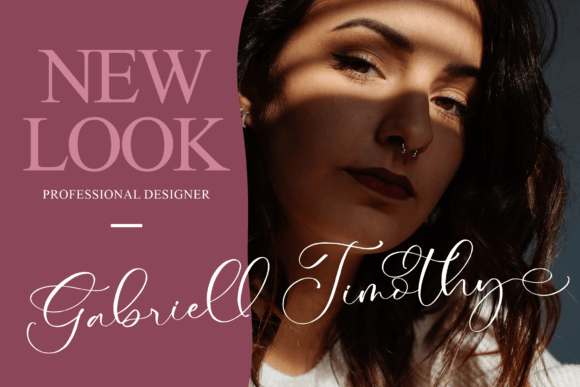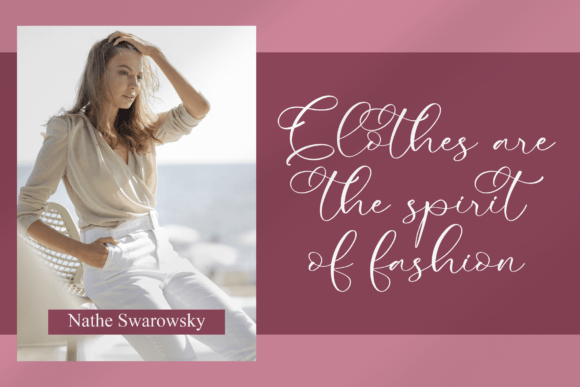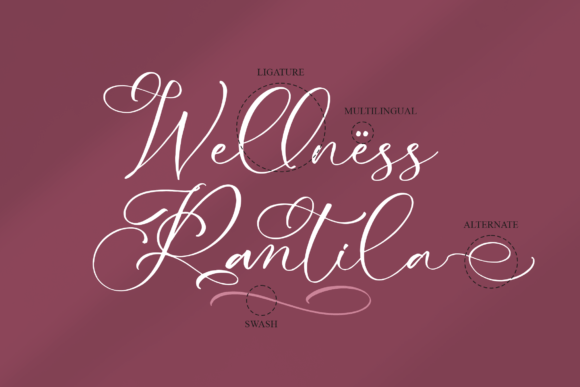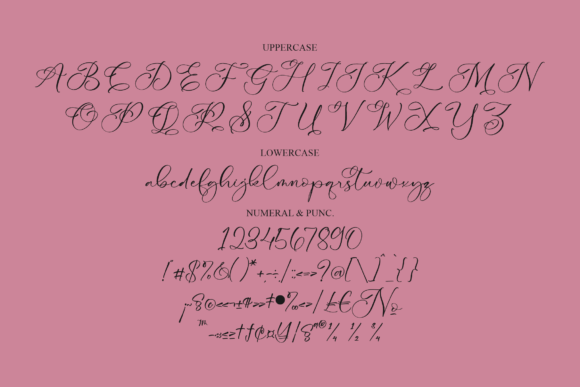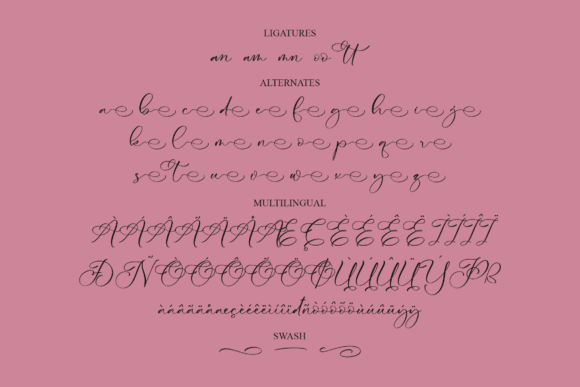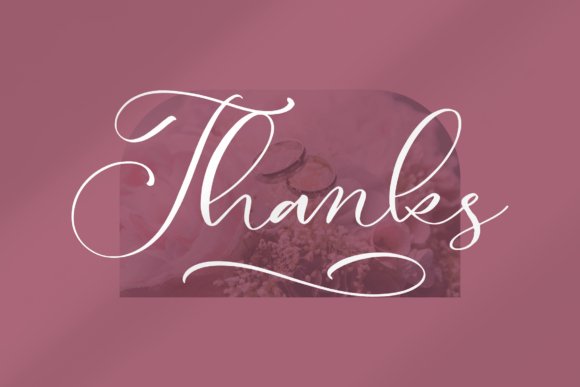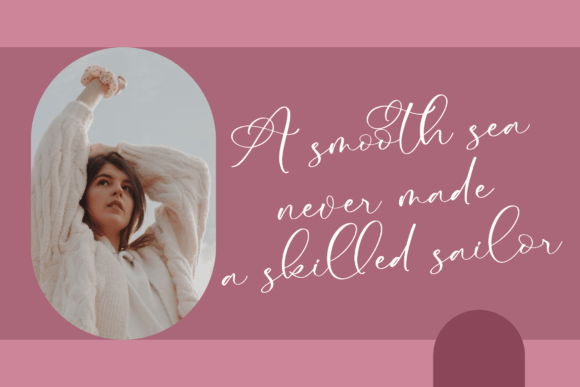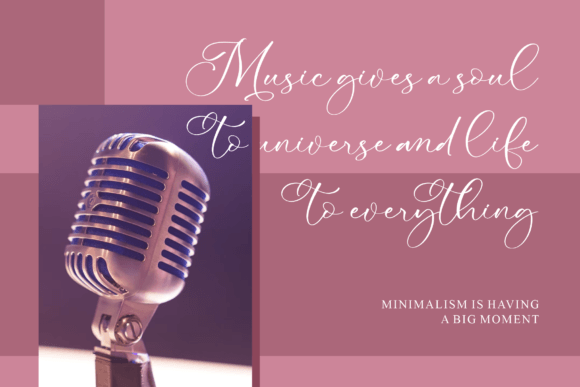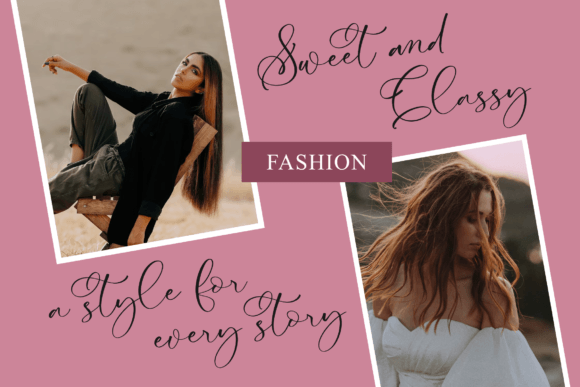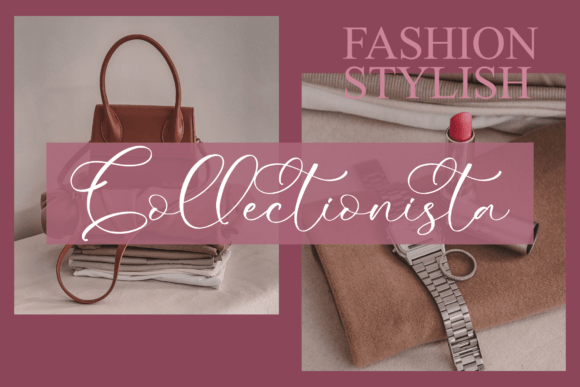
Rantila Font
About Rantila Font
“Rantila,” a beautifully crafted script font, brings a touch of elegance to a myriad of creative projects. Its versatile design makes it a fitting choice for a diverse range of applications, from logos and branding to homeware designs, product packaging, and more. The script’s aesthetic appeal extends across various mediums, including mugs, quotes, posters, shopping bags, t-shirts, book covers, name cards, invitation cards, greeting cards, labels, photography, watermarks, and special events.
This script font’s allure shines prominently in logo and branding projects, where its elegant and beautiful qualities aid in creating memorable and distinct brand identities. Its sophistication extends to homeware designs and product packaging, enhancing the visual presentation with a touch of refinement.
For expressive mediums such as quotes, posters, and t-shirts, “Rantila” brings a beautiful taste that elevates the impact of messages and designs. The script’s application to book covers and name cards creates a refined and cohesive aesthetic, contributing to an overall sophisticated look.
Invitations and greeting cards are elevated with the inclusion of “Rantila,” infusing them with charm and elegance. The font’s beauty extends to labels and watermarks, providing a tasteful and stylish presentation for products and digital content.
In the realm of photography and special events, “Rantila” becomes a valuable asset, adding a touch of beauty and refinement to capture attention and set the tone for memorable occasions.
In essence, “Rantila” emerges as more than a font; it’s a versatile and beautiful script that seamlessly integrates into a multitude of design contexts. Its aesthetic qualities make it adaptable to diverse projects, offering a sophisticated and tasteful solution for those seeking a script typeface with a touch of elegance.